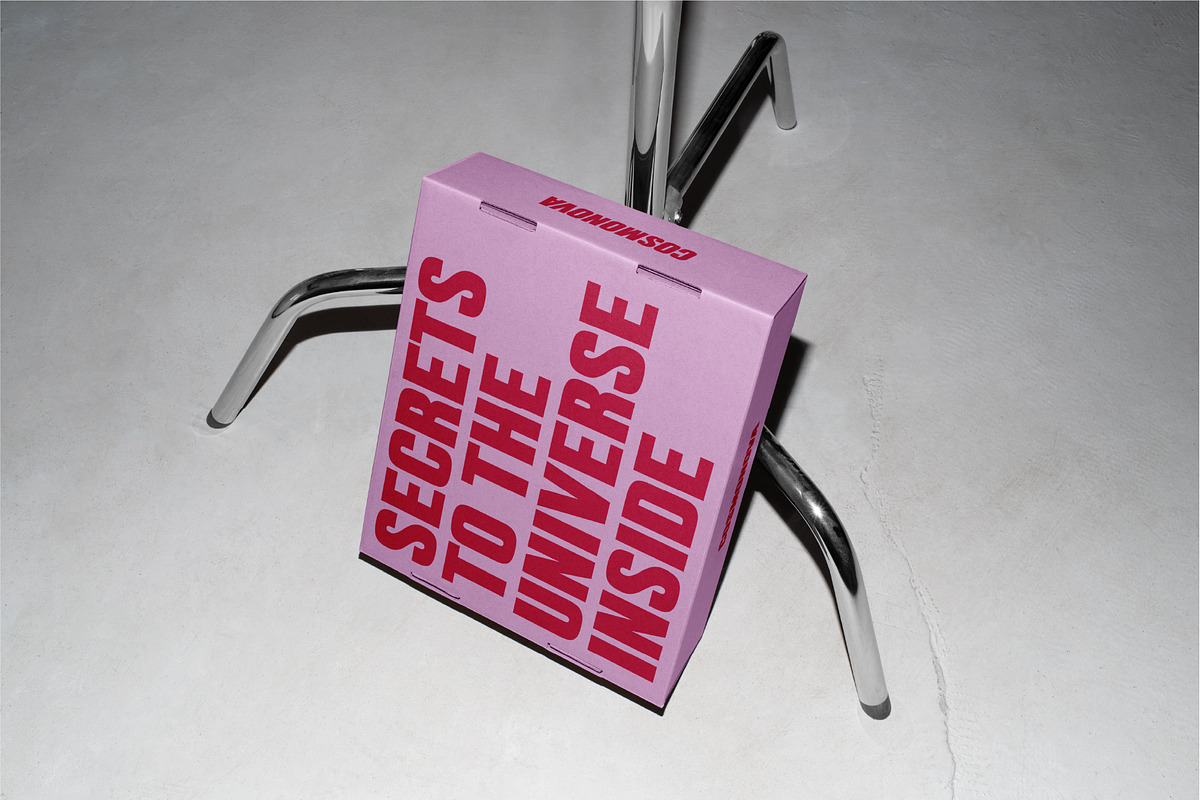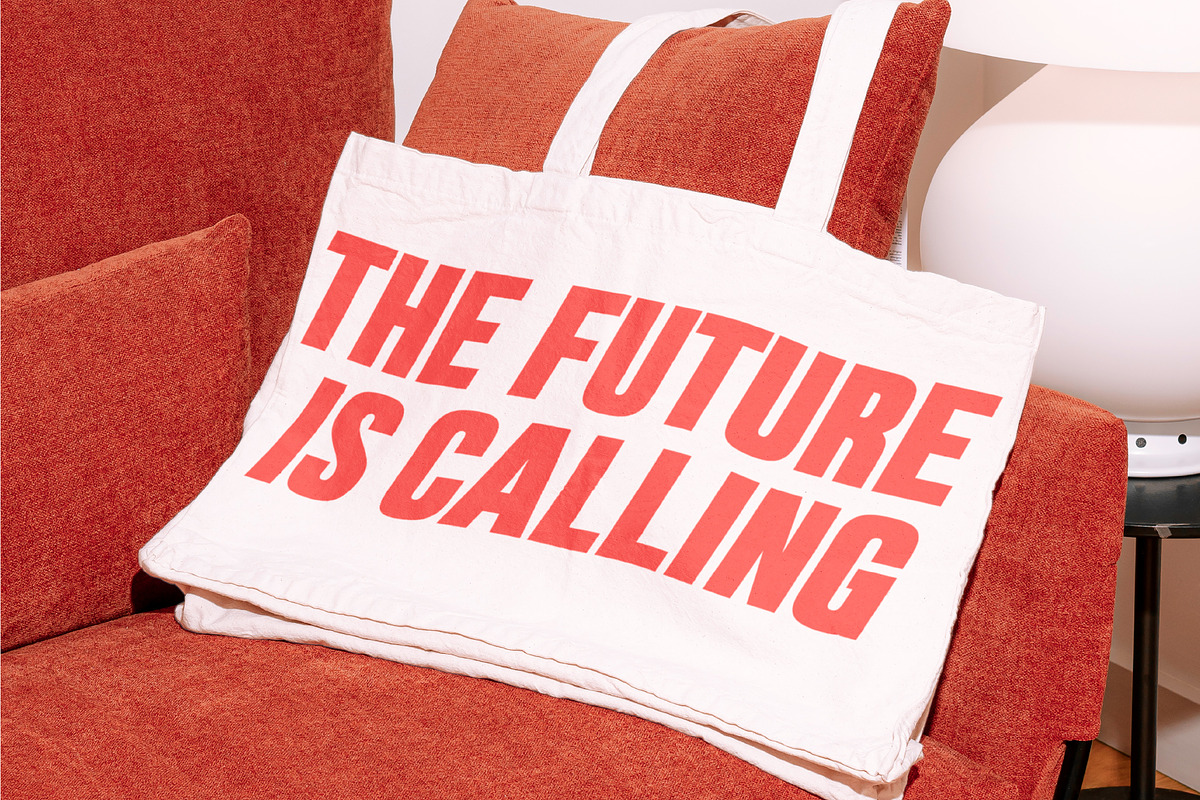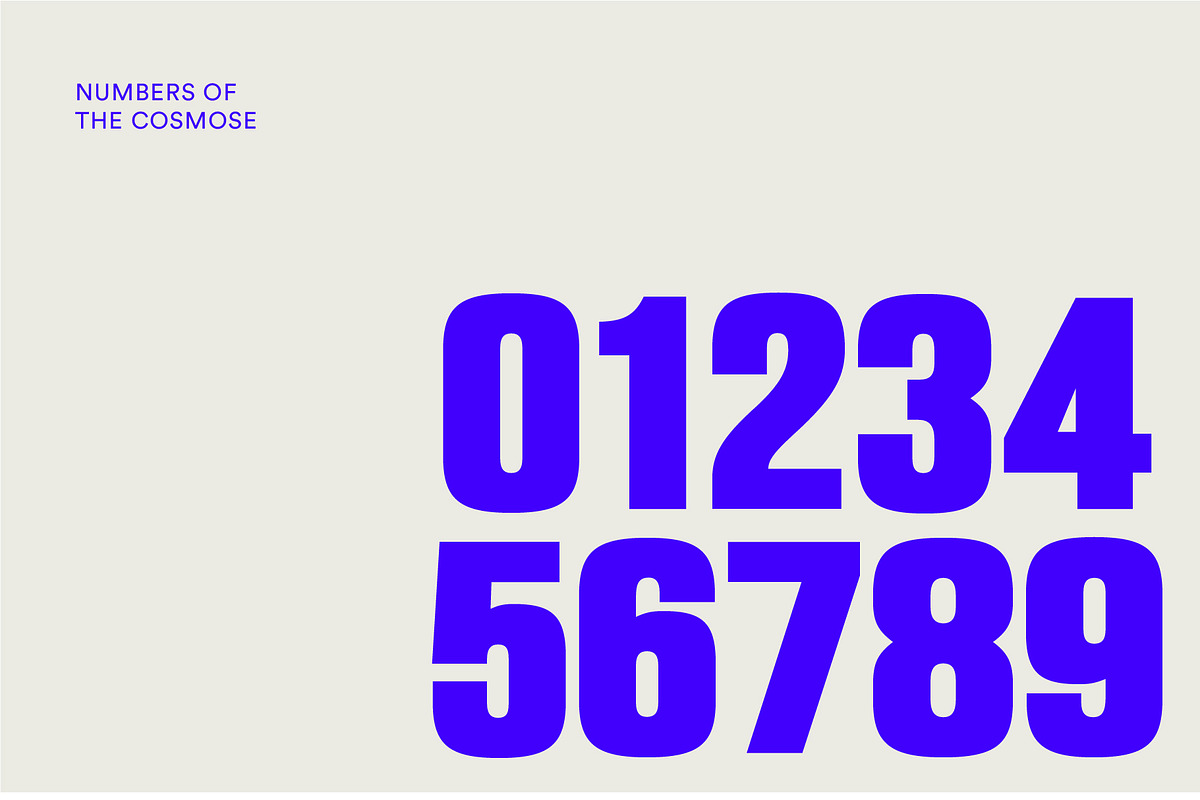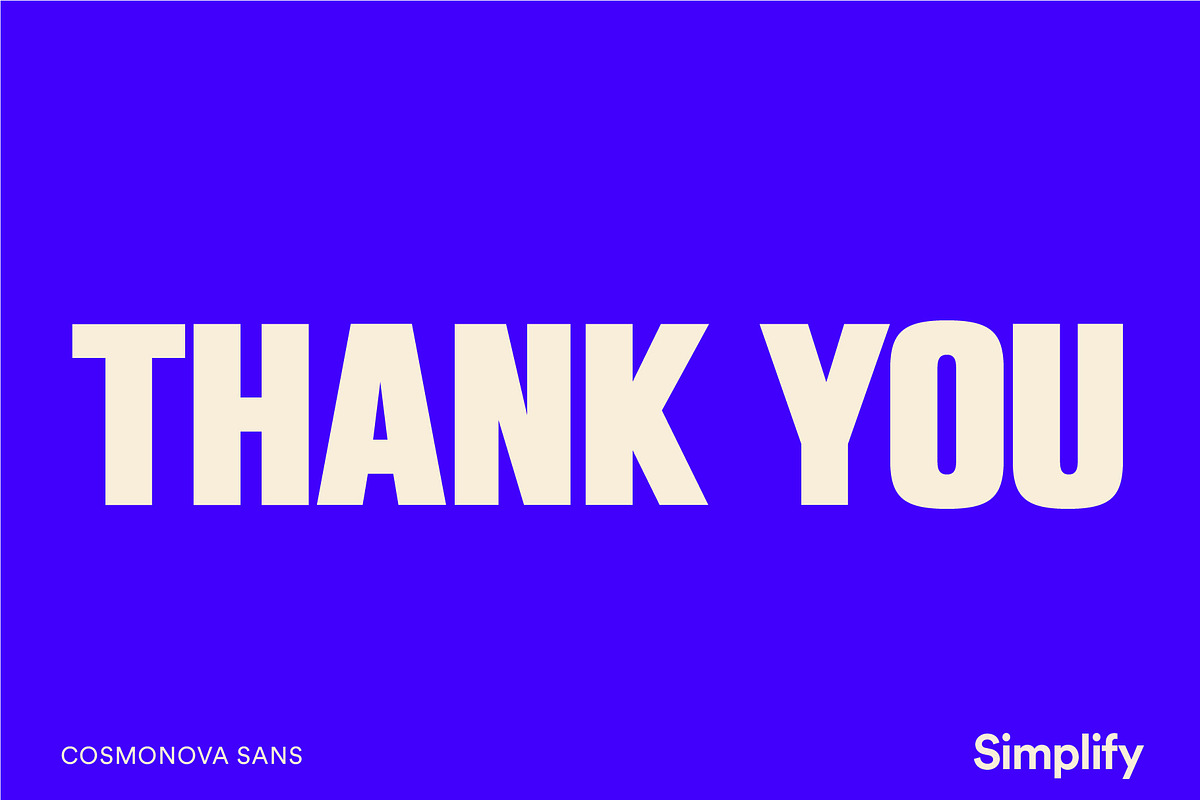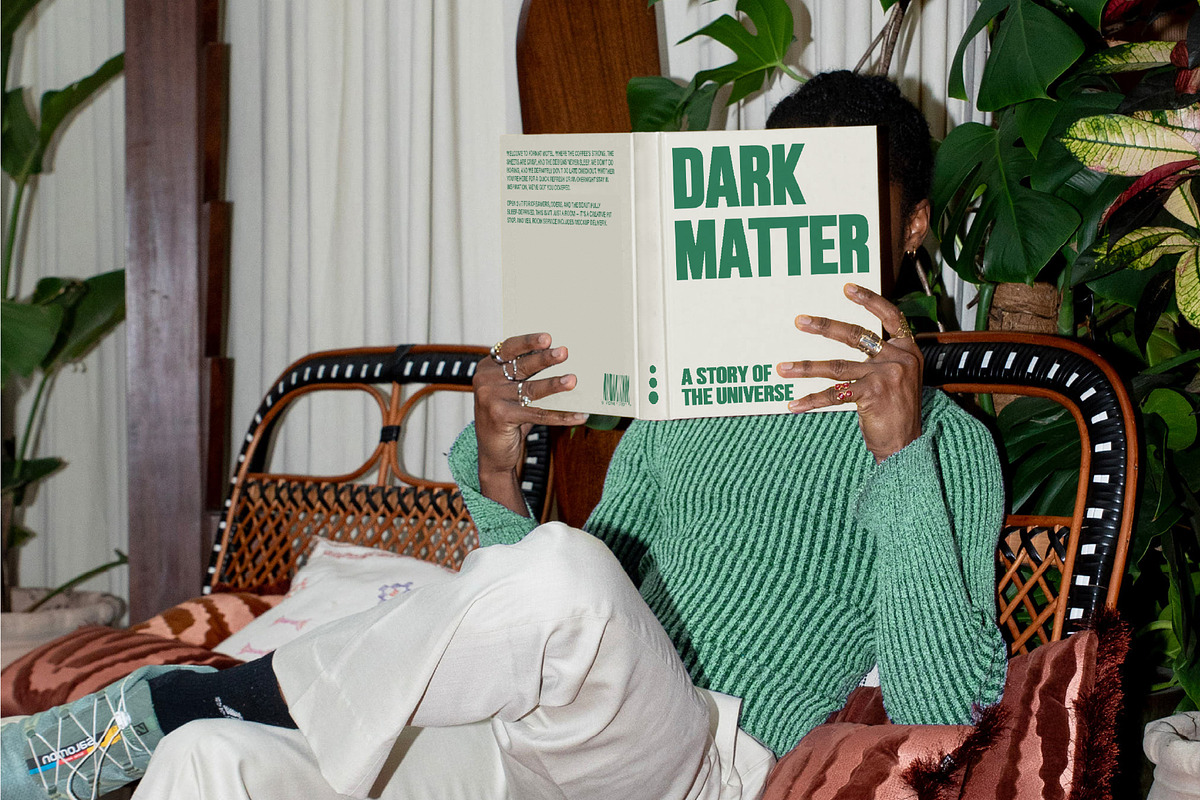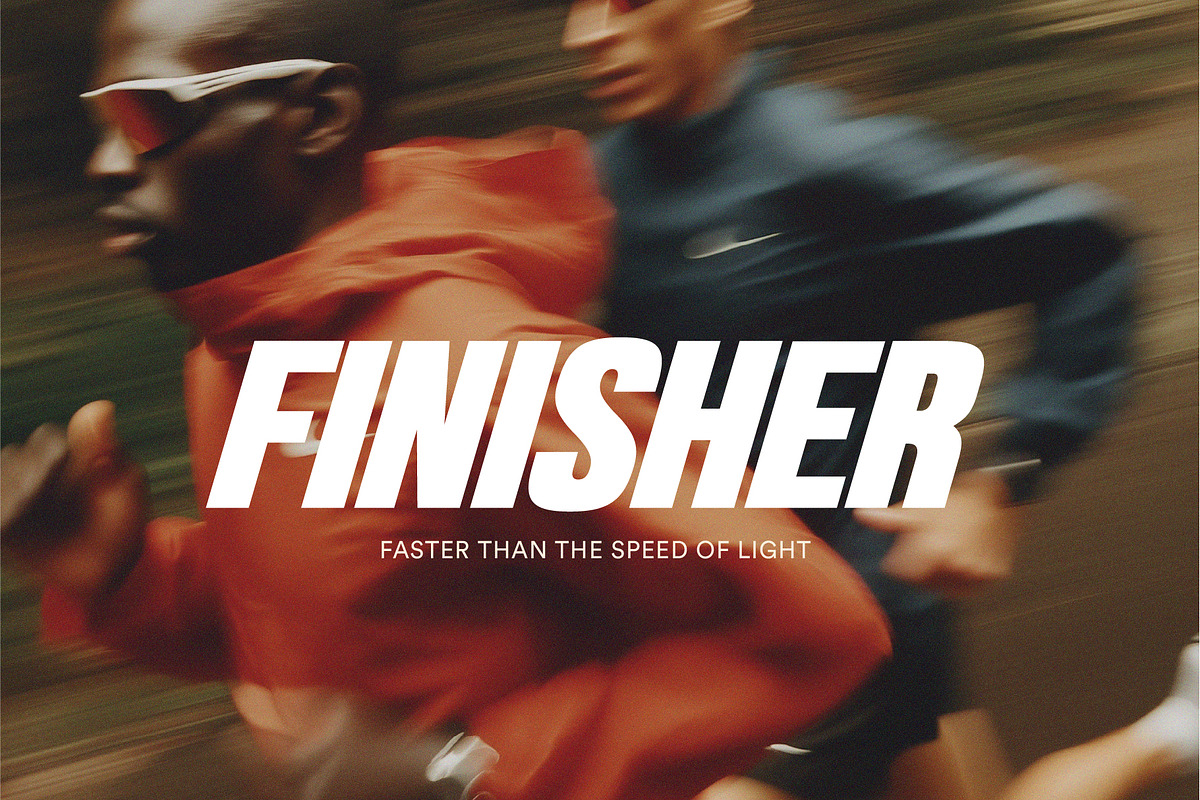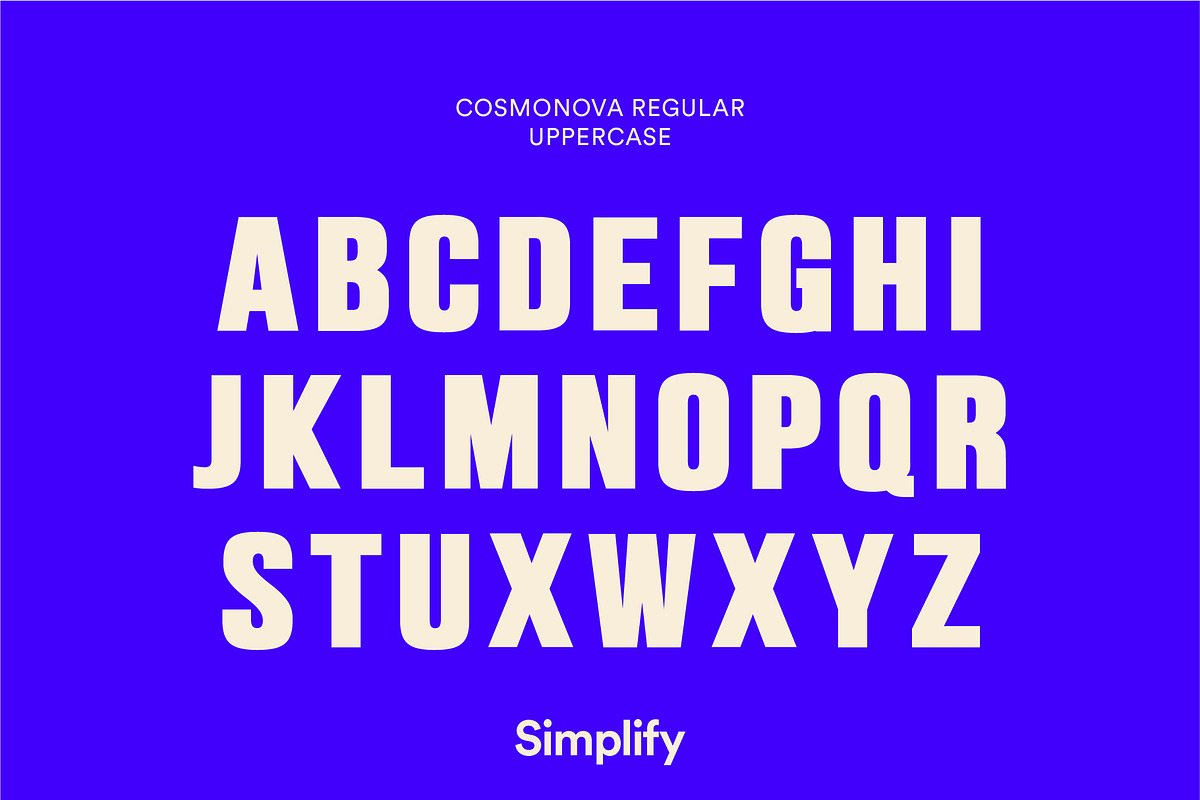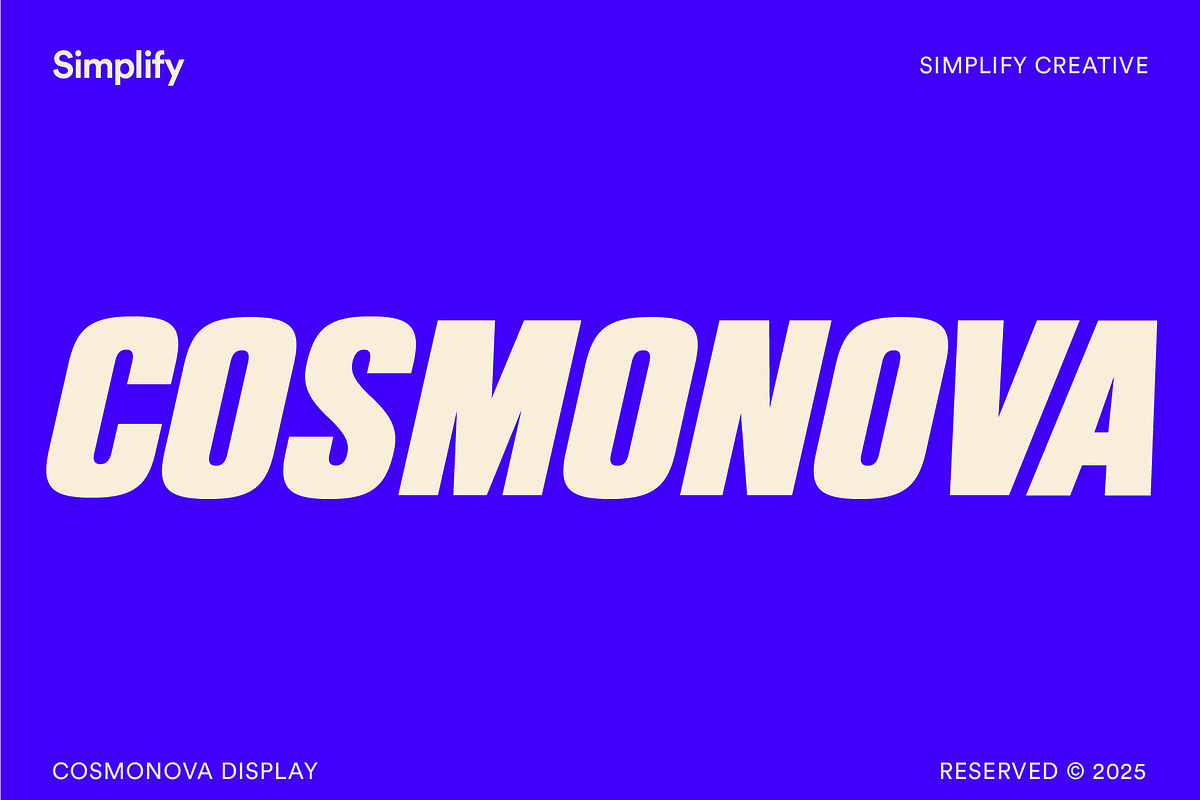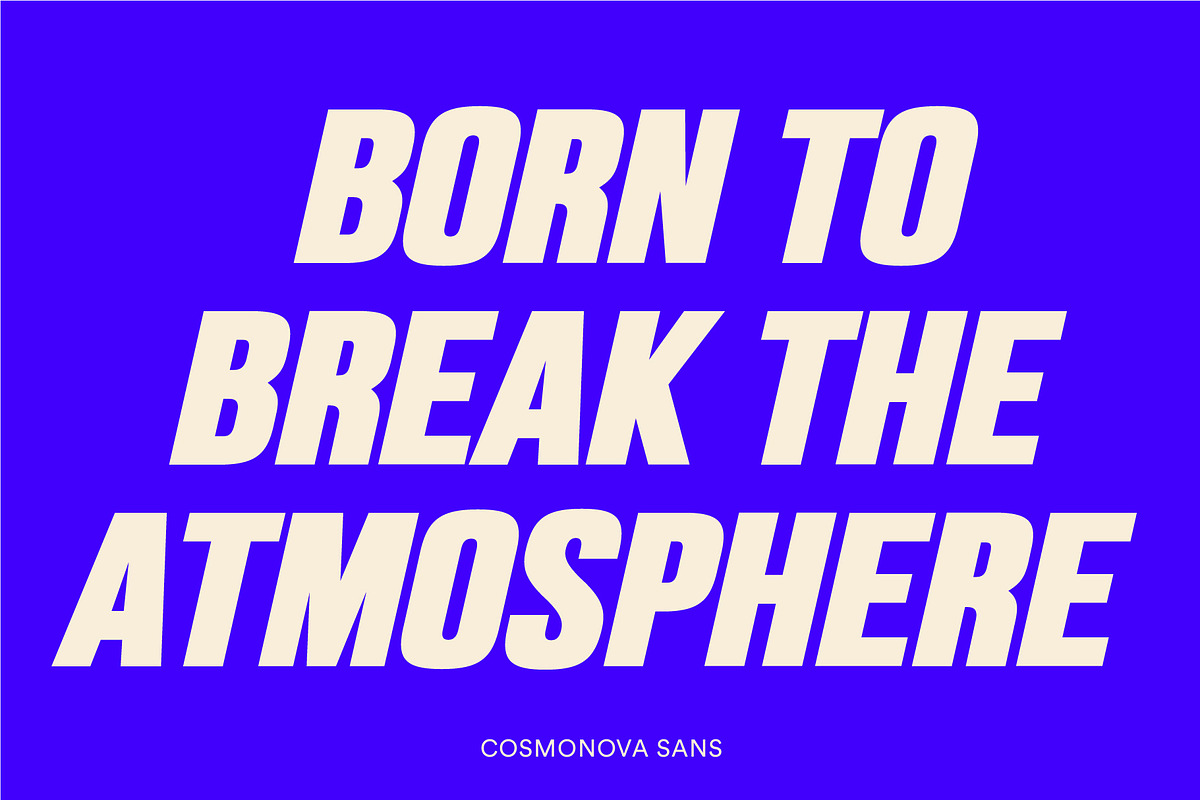
Cosmonova - Bold Display Font
The Future Is Calling. Answer Boldly
Cosmonova is a powerful, modern all-caps display font inspired by space-age aesthetics, futurism, and high-impact editorial design. With its sleek, wide letterforms and dynamic slant in the italic version, it’s designed for brands and creatives who want to go beyond the ordinary and orbit in their own lane.
Whether you're designing for tech, fashion, motion graphics, or futuristic posters, Cosmonova delivers visual gravity in every letter.
All Uppercase Characters
Numbers & Basic Punctuation
Ideal for headlines, logos and apparel
Why You’ll Love It
Futuristic but accessible
Inspired by NASA-era typography and modern editorial design
Perfect for motion, speed, innovation, and sports
Strong presence in both print and digital